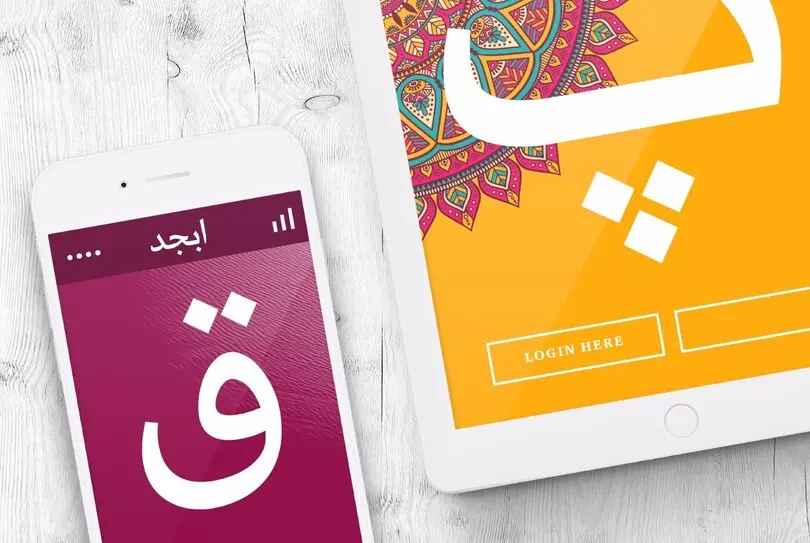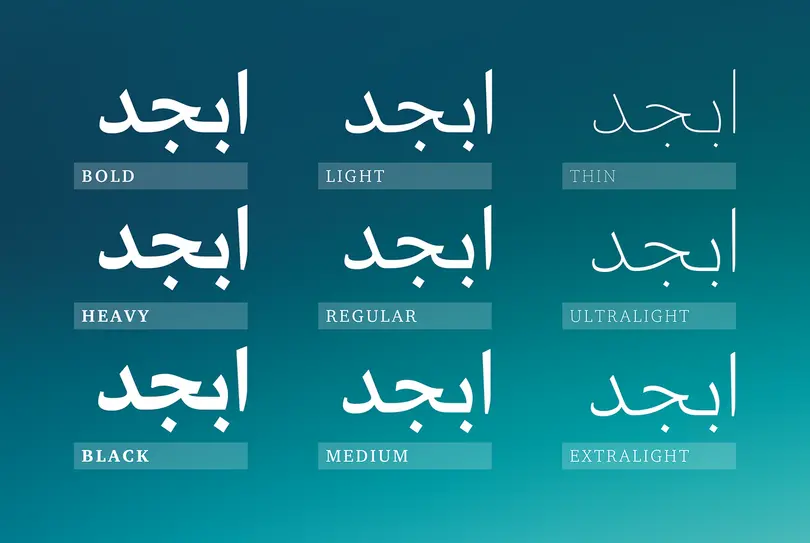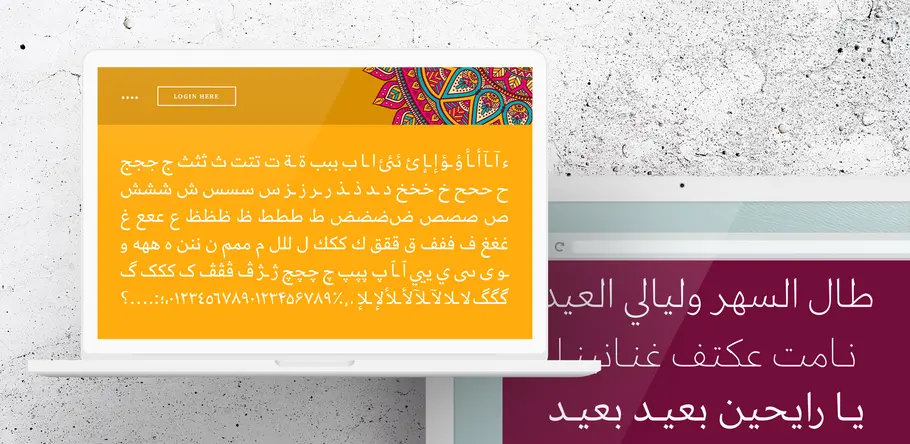
Introducing Amariya, a new Arabic font by Nadine Chahine.
“ Normally my work involves pushing the boundaries of what you can design, and making the design space bigger, but for this I've gone to the heart of the typical Arabic text face. ”
Amariya
Created with screen reading in mind, Amariya’s sculpted, understated elegance is specifically designed for long-form copy in Arabic, Urdu or Persian. Its open shapes and streamlined forms are tailored not just to the digital world, but the flow and rhythm required by someone immersing themselves in words.
Amariya
Amariya by Nadine Chahine, is part of the designer’s ongoing efforts to introduce more design diversity into the world of Arabic type.
Amariya follows the kinds of text typefaces that are already popular in the Middle East, but with close attention paid to the demands of the online reading environment. Its low contrast, open shapes and streamlined form create a sense of internal harmony – the result of two years of design, and several complete revisions along the way in order to create type that would allow text to flow freely.
“Sometimes with typefaces of this style there’s a kind of flickering effect, caused by areas of dark and contrast that can become too thin,” she adds. “This one settles down and is very calm, with everything in its place. The word shapes also come together well.”
“ There are so few Arabic typefaces that work well for reading on screen,” explains Chahine. “I wanted to have the freedom to design this how I felt it needed to be designed.”
Amariya
Supporting Arabic, Persian and Urdu, Amariya is available in nine weights – including super light versions that preserve its elegance and character at hairline widths, and a black version particularly suited for setting headlines.
Supporting Arabic, Persian and Urdu, Amariya is available in nine weights – including super light versions that preserve its elegance and character at hairline widths, and a black version particularly suited for setting headlines. It also comes with Matthew Carter’s ITC Charter as a Latin companion.
“This typeface almost tries to disappear,” says Chahine. “Normally my work involves pushing the boundaries of what you can design, and making the design space bigger, but for this I’ve gone to the heart of the typical Arabic text face.”
“It encourages you to just take a breath, and read,” she adds.
Amariya
“Normally my work involves pushing the boundaries of what you can design, and making the design space bigger, but for this I’ve gone to the heart of the typical Arabic text face” says designer, Nadine Chahine.